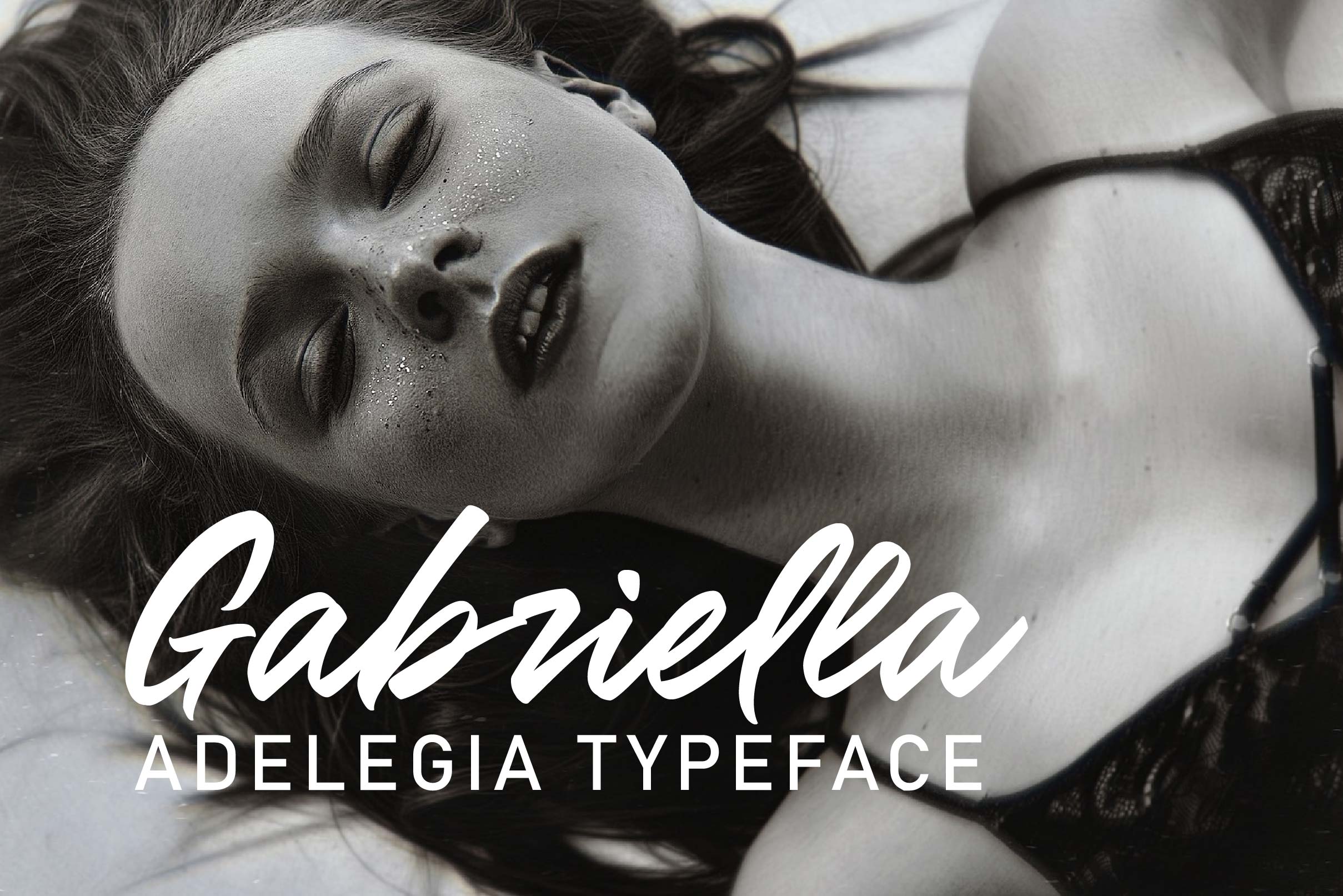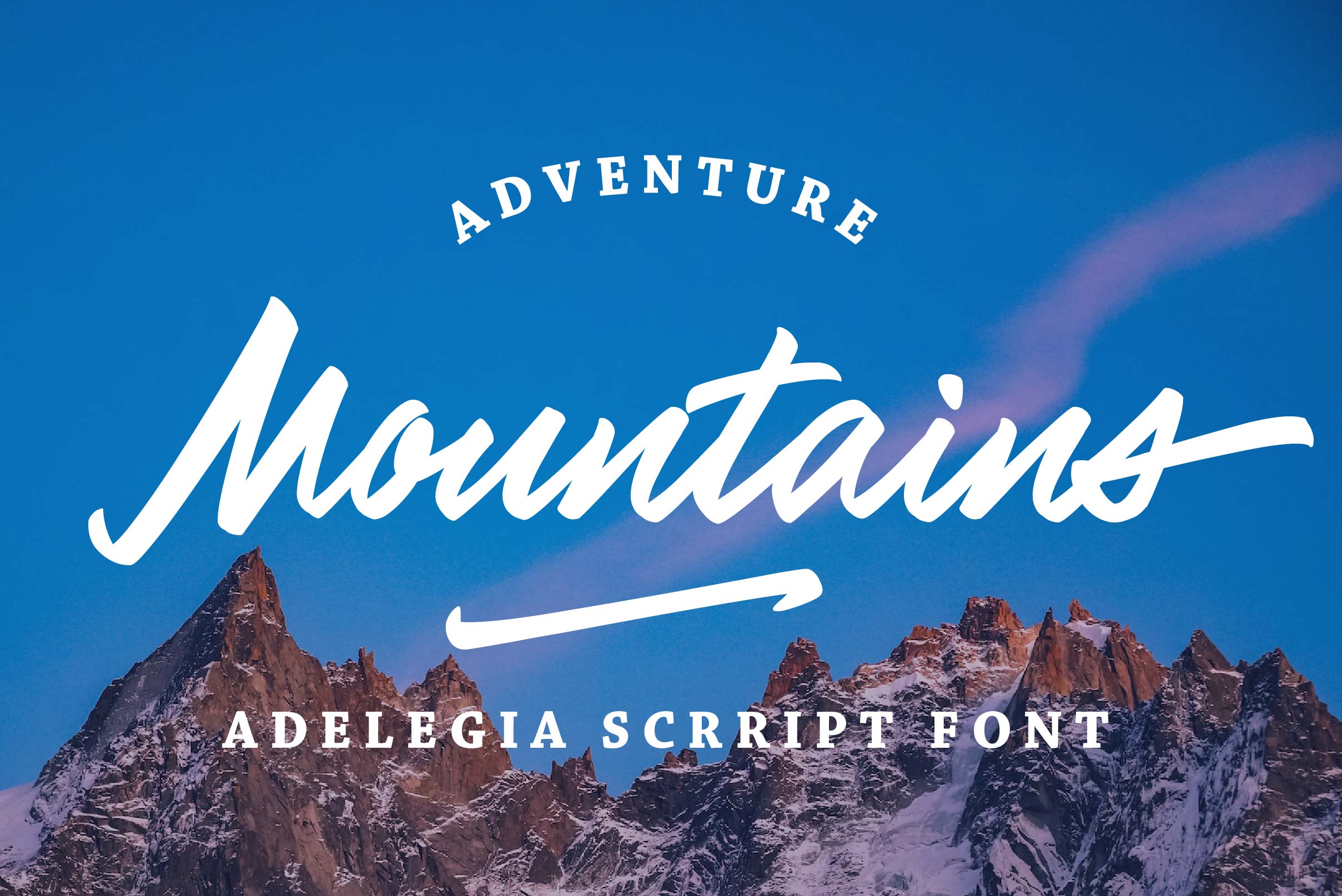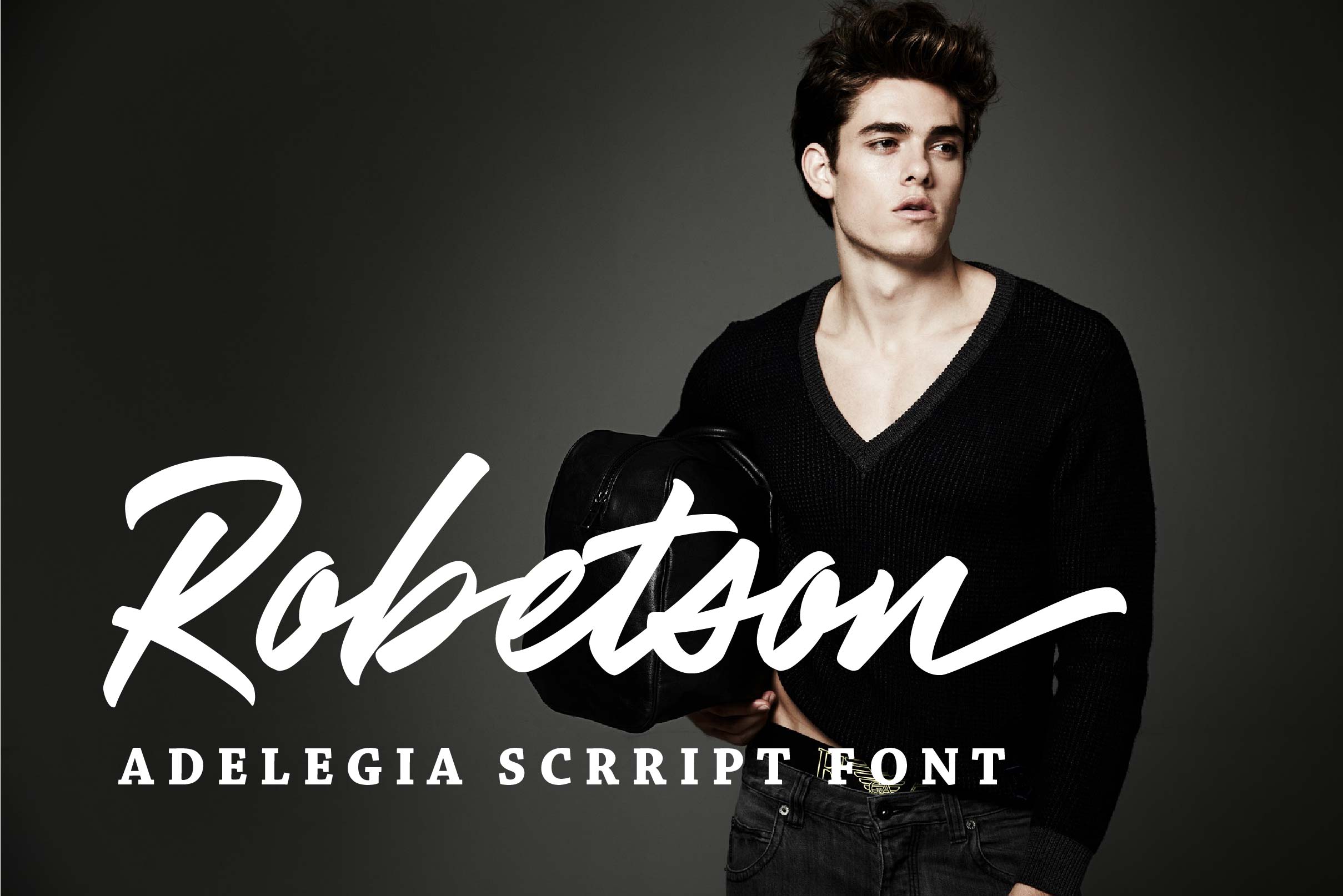
Adelegia Font
Adelegia Script Font is a delicate handwritten font carefully crafted for a cool and unique design. This font can be used to write letters, invitations, food products, titles, and more.
– Uppercase, Lowercase, Numeral & Punctuation
– Alternate Letters, Ligature & Swash/Tail